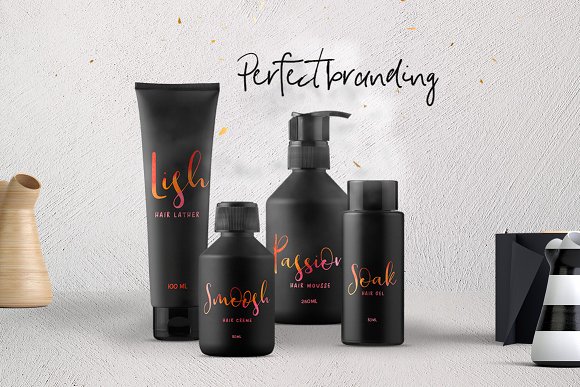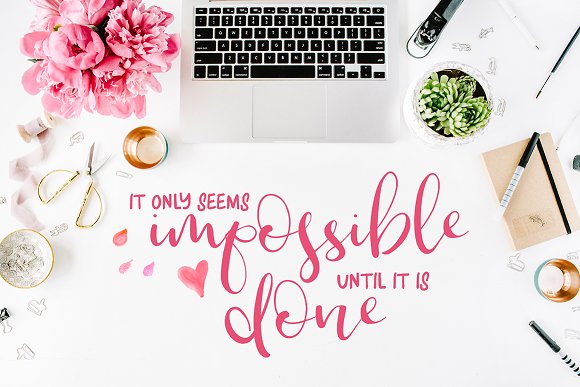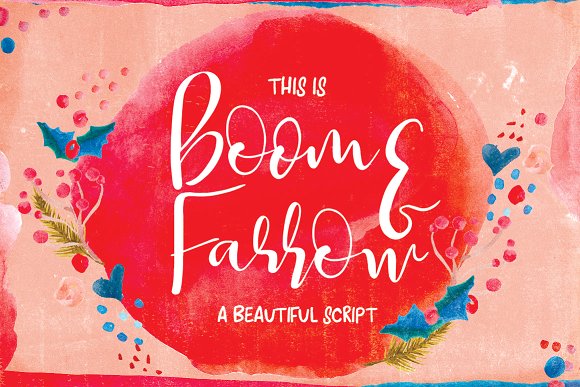
Boom & Farrow Script Font
Boom and Farrow – a gorgeous smooth hand written script font with loads of bounce and character.
Use it for headings or for script, it works beautifully for both.